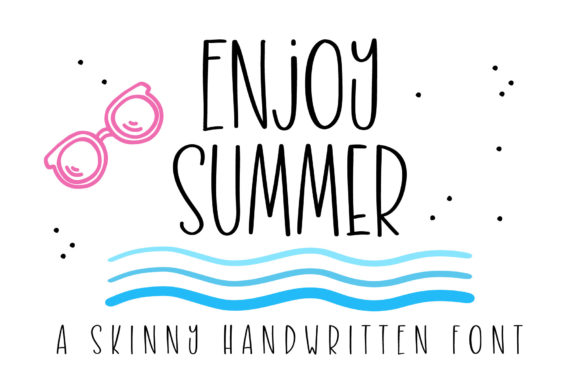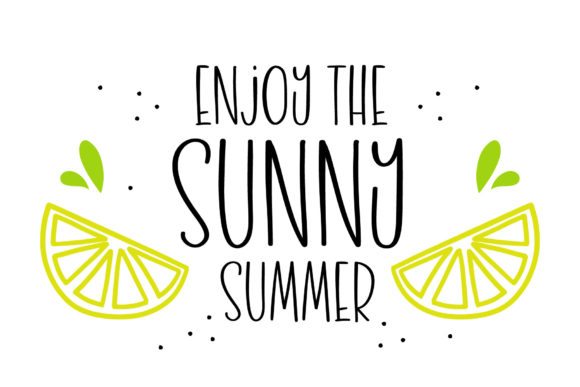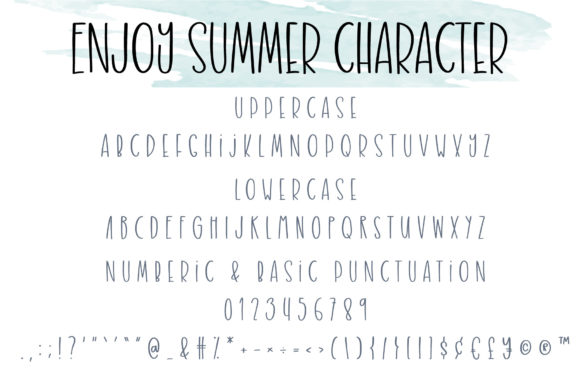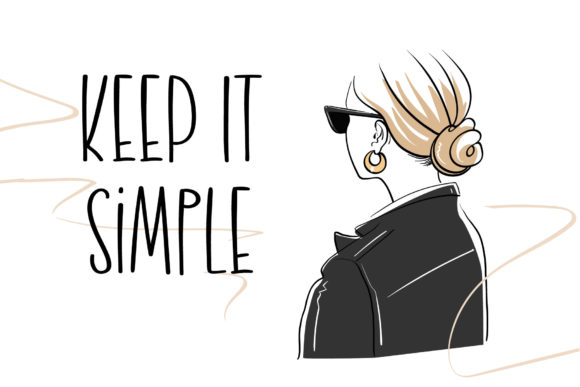
Enjoy Summer Font: Cute Handwritten Typography for Cricut Crafts!
About the Enjoy Summer Font
Elevate your designs with Enjoy Summer Font, a font that combines sophistication with readability. Enjoy Summer is a cute and relaxed handwritten font. Its natural and unique style makes it incredibly fitting to a large pool of designs. The only limit is your imagination!
Enjoy Summer’s playful charm makes it ideal for projects requiring a friendly, approachable feel. It works exceptionally well in headlines, short taglines, social media graphics, and packaging for products targeting a young, female demographic. Consider it for invitations, greeting cards, or branding for businesses focused on summer activities, fashion, or food. Avoid using it for body text or lengthy content; its informal nature detracts from readability in larger blocks of text.
Pairing Enjoy Summer with a clean sans-serif like Lato or Open Sans provides a sophisticated counterpoint, balancing its casual energy. For a more playful effect, a geometric sans-serif such as Futura or a slightly more whimsical script font could also work well. The key is to choose a secondary font that maintains readability without overpowering Enjoy Summer’s distinct personality.
The font’s overall personality is best described as carefree and optimistic. Its slightly irregular letterforms and relaxed spacing convey a sense of warmth and spontaneity, making it a perfect choice for projects that need to project a lighthearted and summery vibe.
Enjoy Summer Font Usage Examples
Enjoy Summer Font Example